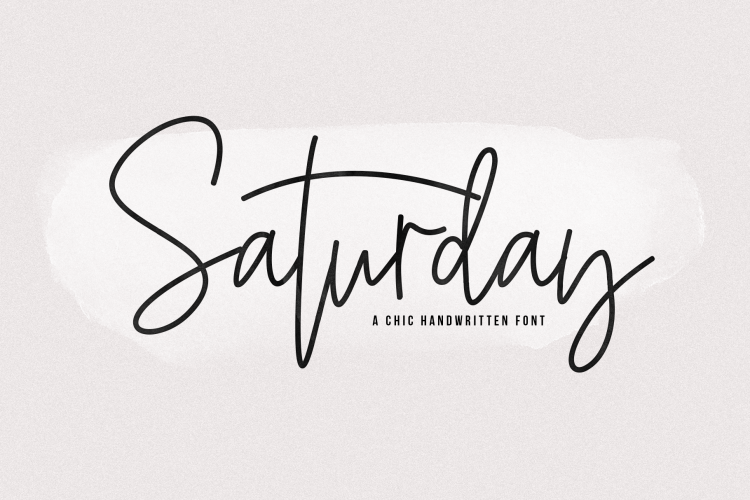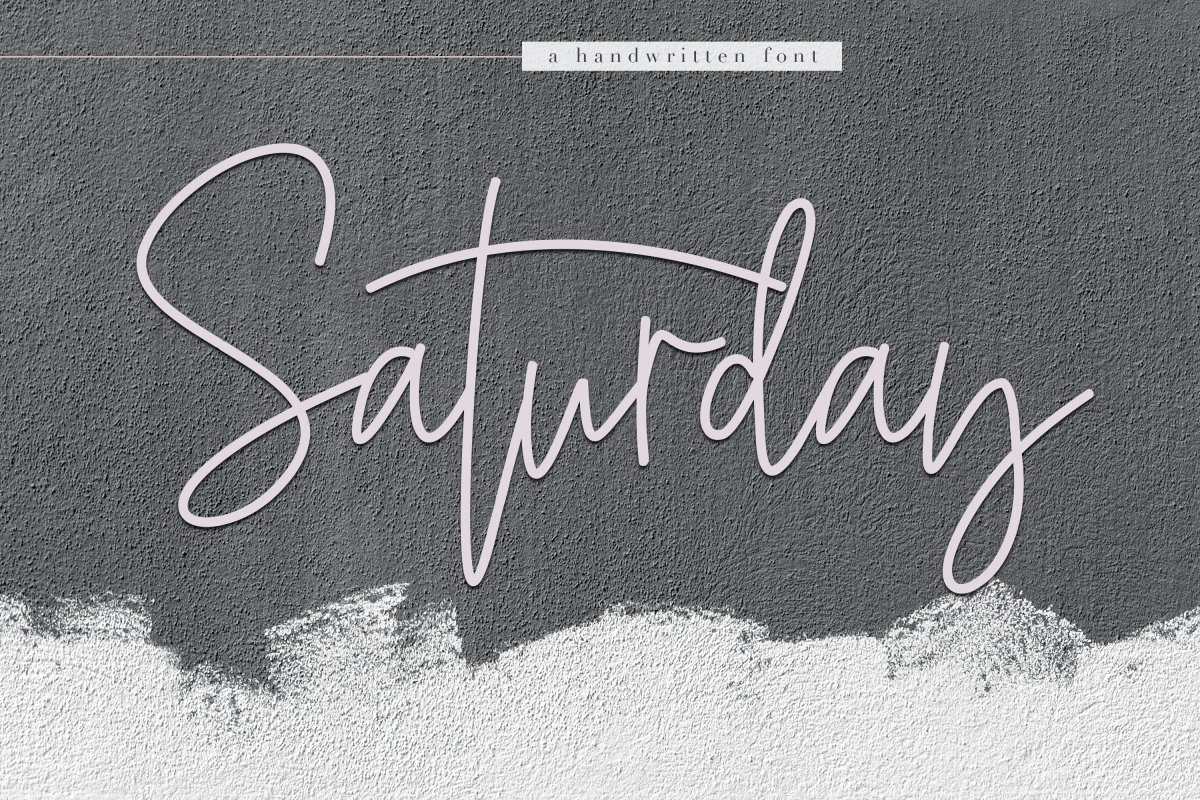
Saturday - Signature Script Font
Saturday
Saturday is a chic handwritten script font.
This font is perfect for quotes, branding, Cricut projects, wedding decor, farmhouse signs, logos, signatures, invitations and more!